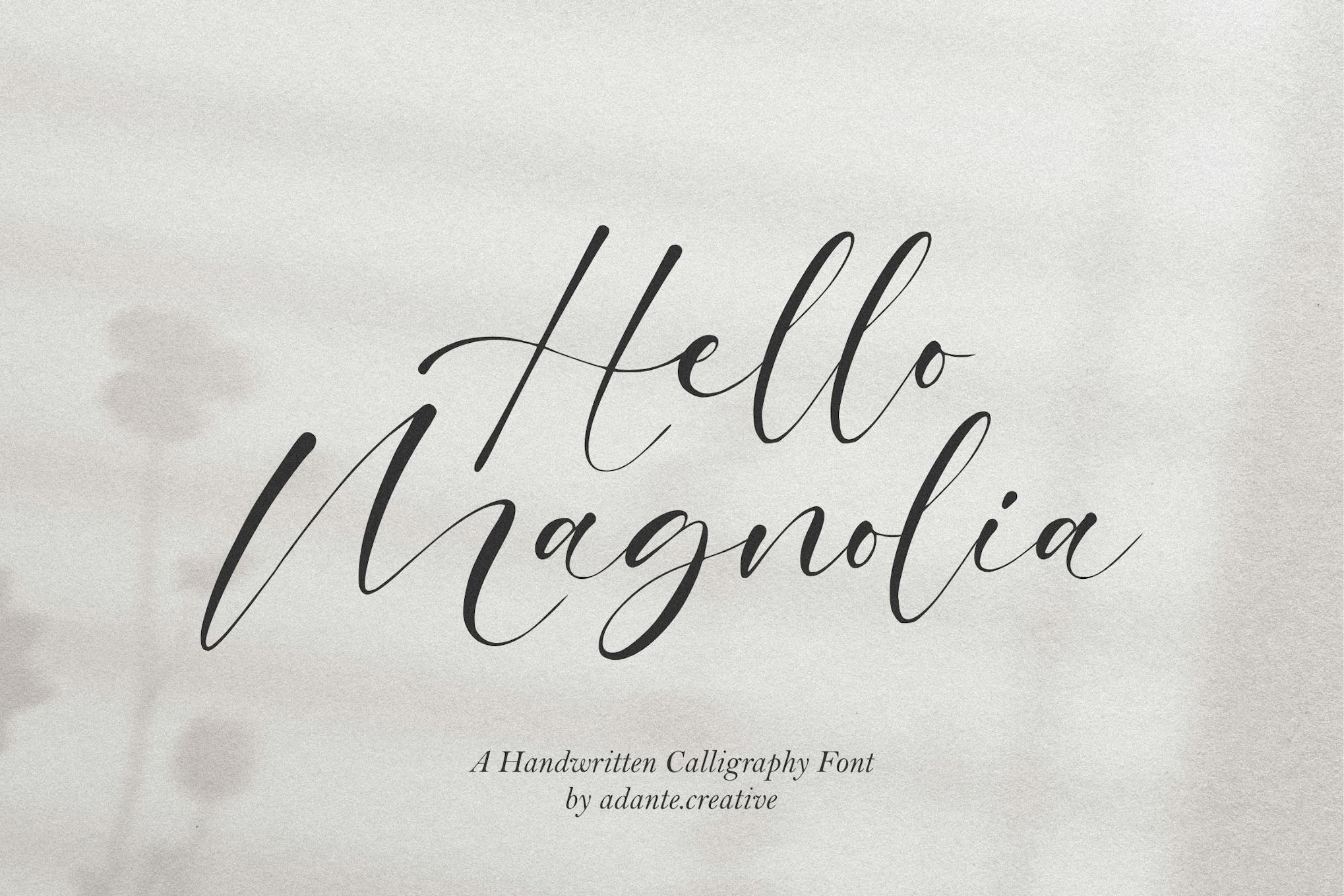
AC - Hello Magnolia Font
Hello Magnolia is a Handwritten Calligraphy font,are choices for wedding invitations, RSVP cards, place cards, and other stationery items. They add a touch of elegance and romance to the design, setting the tone for the special day. This font includes OTF, TTF & Woff Software that you can use to use this font: Adobe Illustrator, Adobe Photoshop, Microsoft Word, Corel Draw, And Inkscape, etc.